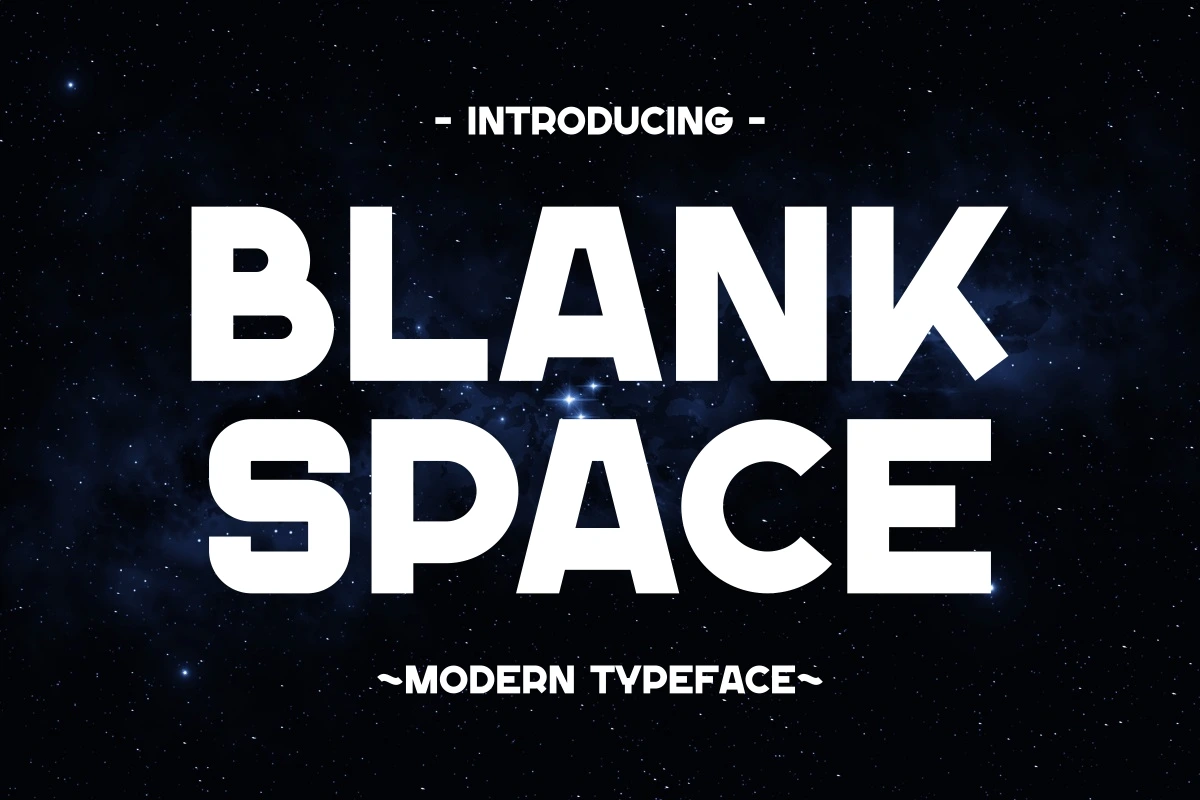
Black Space - Modern Typeface
Introducing Blank Space — a modern and bold sans serif typeface inspired by futuristic and space aesthetics. Its clean geometric shapes and strong lines make it perfect for headlines, posters, branding, and digital interfaces. Designed to capture a sense of modernity and innovation, Blank Space brings a sleek and confident look to your creative projects.
✨ Ideal for: logo design, sci-fi themes, tech branding, minimalist titles, and modern digital visuals.